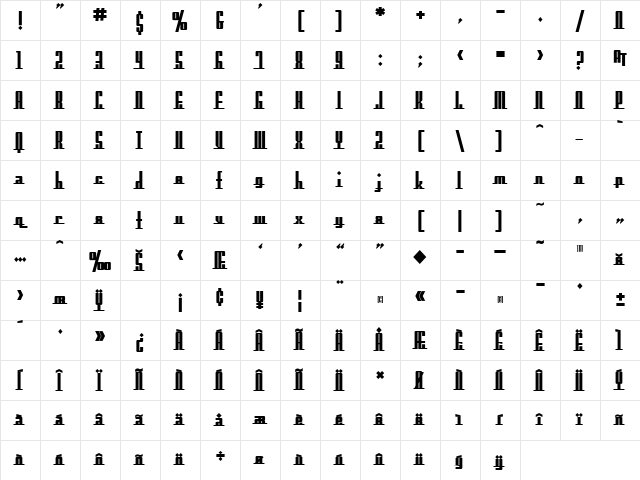
SF Americana Dreams Upright Bold
SF Americana Dreams Upright Family
Design Context for SF Americana Dreams Upright
SF Americana Dreams Upright is a composed and adaptable typeface that performs quietly and consistently across a wide range of design contexts. Its bold stroke weight gives it real presence on the page.